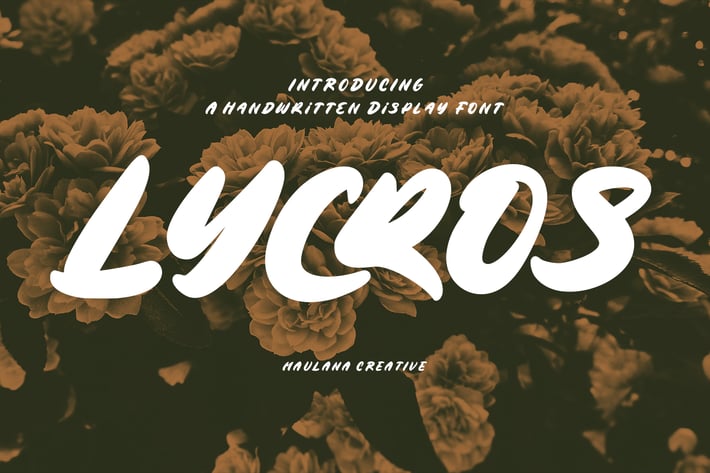
Lycros Handwritten Display Font
Lycros is a slanted handwritten font. With medium clean brush stroke, fun character with a bit of ligatures and alternates. To give you an extra creative work. Lycros font support multilingual more than 100+ language. This font is good for logo design, Social media, Movie Titles, Books Titles, a short text even a long text letter and good for your secondary text font with sans or serif. Make a stunning work with Lycros font.